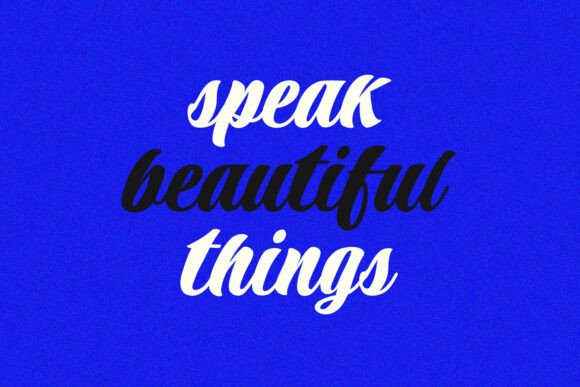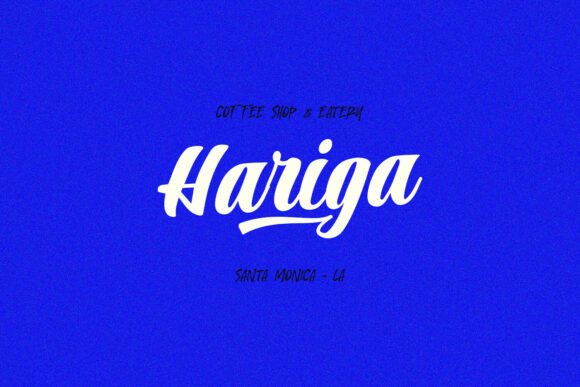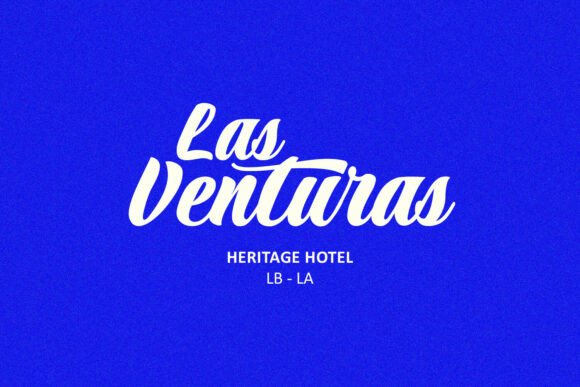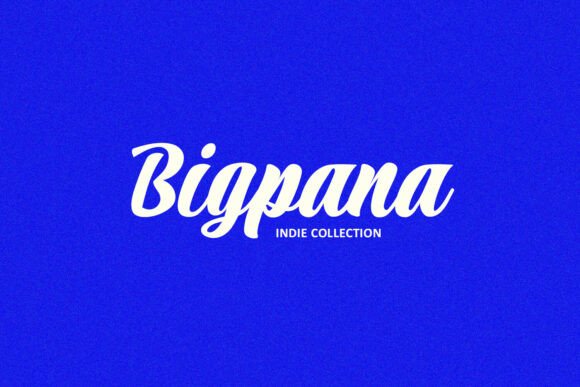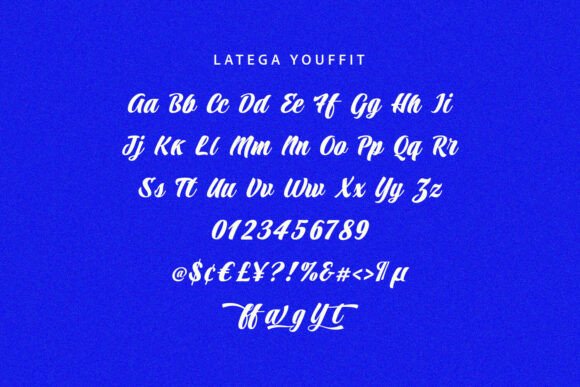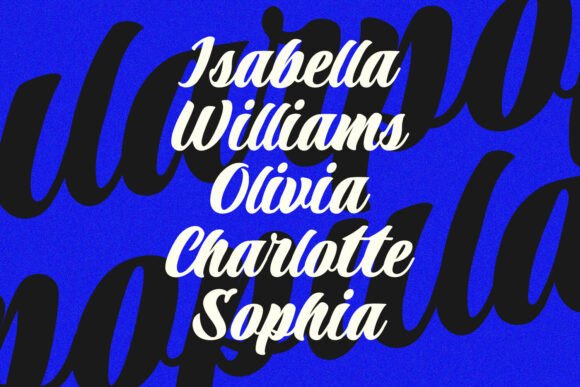
Introduction to Latega Youffit Font Font
Fonts play a crucial role in design, and the Latega Youffit Font font is a typeface that brings both character and versatility to any project. Whether you’re working on a branding project, a website, or a print design, the Latega Youffit Font font offers a unique style that can elevate your work.
Latega Youffit is a powerful and energetic handmade script font that perfectly captures the spirit of retro advertising, modern branding, and casual elegance.
Its confident, flowing lines and thick strokes make it stand out instantly, while the smooth connections ensure legibility and style Whether youβre creating a punchy logotype, an eye-catching header for social media, merchandise, or packaging, Latega Youffit adds a dynamic, handcrafted feel that resonates with audiences worldwide.
Key Features of Latega Youffit Font Font
Why Choose Latega Youffit Font Font?
The Latega Youffit Font font is more than just a typeface β it’s a design tool that helps you communicate your message with style and clarity. Its unique character set and versatile design make it suitable for a wide range of applications, from elegant invitations to bold headlines.
With its carefully crafted letterforms and balanced proportions, the Latega Youffit Font font ensures readability and visual appeal across all mediums.
What makes Latega Youffit Font font special?
The Latega Youffit Font font stands out with its unique design, exceptional readability, and versatility across various design applications.